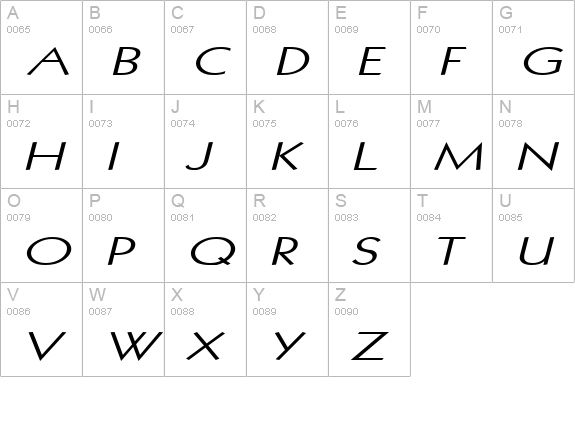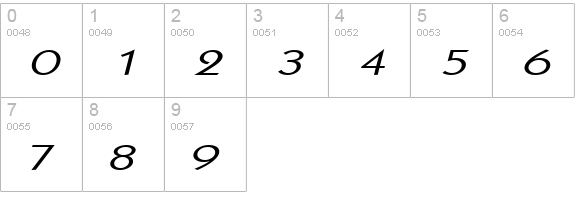
Geo 112 Extended Italic is a distinctive, extended-width, italic variant in the Geo typeface family \xE2\x80\x94 well suited to design and typography projects.
Introducing Geo 112 Extended Italic font, a sleek and stylish typeface designed to make a bold statement in any project. With its elongated letterforms and dynamic slant, this font exudes a sense of modernity and sophistication. Perfect for adding a touch of elegance to your designs, Geo 112 Extended Italic font is versatile and eye-catching. The best part? Geo 112 Extended Italic font is available for free download at FontsMarket.com. Simply head over to the website and add this stunning typeface to your collection without any cost. Whether you're creating a logo, poster, website, or any other design project, Geo 112 Extended Italic font will elevate your work to the next level. Don't miss out on this amazing opportunity to enhance your creative endeavors with this beautiful font. Download it now and let your creativity soar!